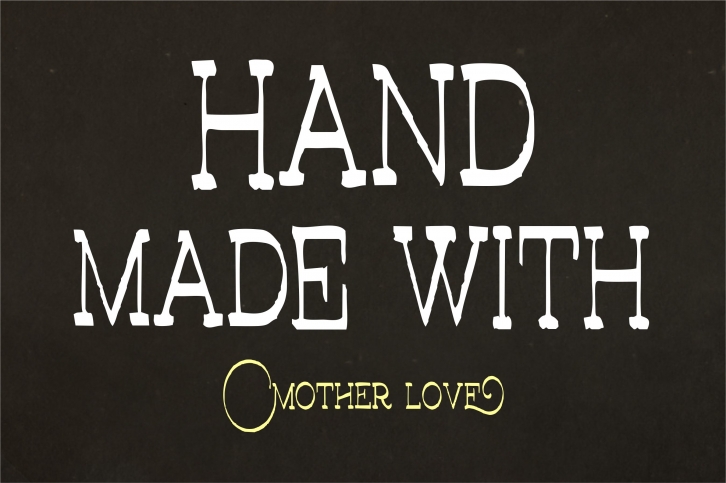
Introduce Font handmade Mother Love is this is kind of my first letter, done entirely by hand, with a simple style, classic, display typefaces, folk and retro ornamen.which is combining the style of classic typography with an handlettering modern style, the majority in lowercase with some variation of forms and initial terminal forms in 329+190 glyphs pleasant..and equipped again with 10 exceptional ornament shape with a variety of styles you like.
This is the starting point for creating beautiful things. Mother Love is no clever fonts and perfect. expressive beautiful in your design style. Hopefully with these fonts you can create a quote or make a logo. Making things beautiful or celebrate your special moment, things are very proud if it can support your efforts, and to enable OpenType Acces you need a program that supports OpenType features such as Adobe Illustrator CS, Adobe PS Adobe Indesign and CorelDraw X6-X7, Microsoft Word 2010 or later ... thanks enjoy!